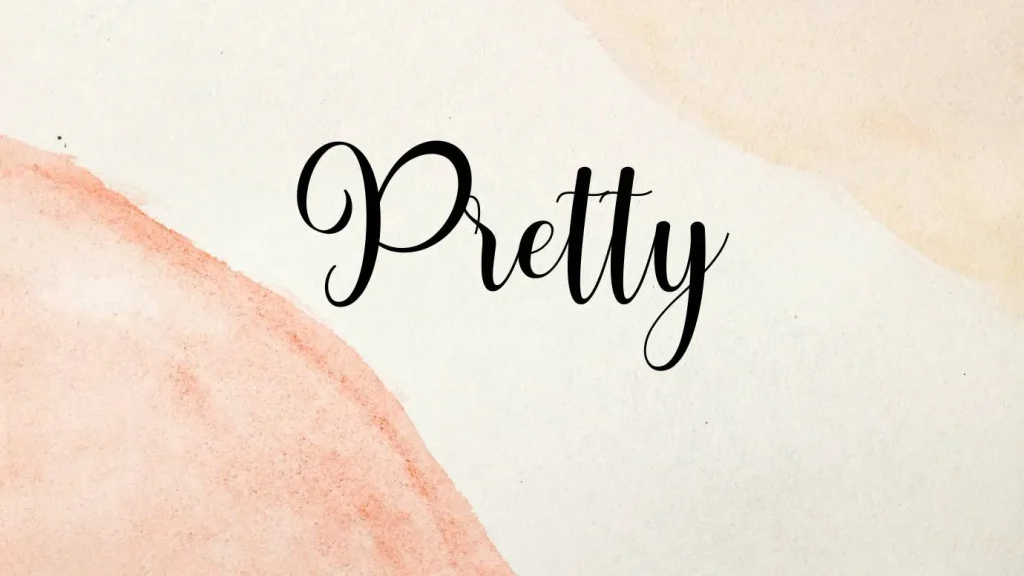
Pretty Font is the script text style that was created to design unique and amazing styles. This design collection will give your task a cool and unique look. With its flexible design and multifunctional capabilities, this font pairs well with other fonts without losing its natural style.
Add a classic antique feel to product names, branding, and logotypes with this typeface. This typeface is full of joy. In the case that you do not wish to download the font family, you can try the generator tool.
How to Use Pretty Font?
Stylish designs can be created with this typeface’s gorgeous features. This typeface is popular worldwide because of its beautiful shape. This font is available in both TTF and OTF formats. This typeface is ideal for creating wall stickers, car stickers, and decoration cards. To elicit the best possible response from your audience, employ the slipknot font in tandem with this font family, optimizing the impact of your message.
Artworks and placards designs can also be created with it.  With this typeface, your text and design will look well-ordered and sparkling. It can be used to create pictures, social media posts, vibrant logos, and many other kinds of designs. Website names and headings can also be made with this font.
Advantages of Using Pretty Font
The main benefit of using this typeface is that you can create amazing text designs, articles, and more digital designs. There are many uses for this typeface in the design world. Creating eye-catching card designs is possible with this typeface. Using it, you can also create long and short paragraphs.
StyleScript
Can I utilize the Pretty Font for logo designs?
This style can be used to create pictures, social media posts, vibrant logos, and many other kinds of designs. Website names and headings can also be made with this font.
What type of Pretty typeface?
The pretty font is the unique text style for making all your fun designs. It is a script typeface.